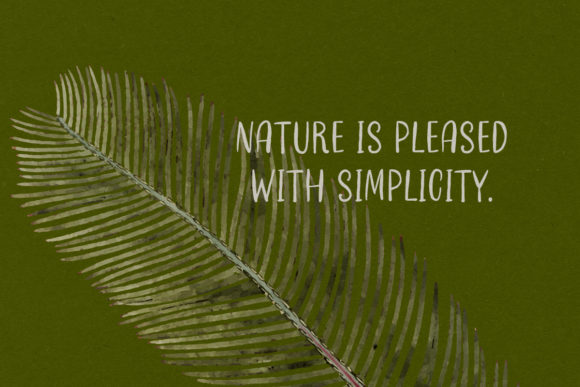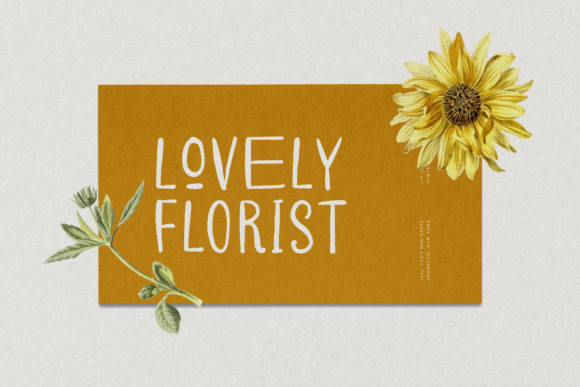
Daisy Lovers Font
db-ku.com - Script & Handwritten -- Daisy Lovers is a sweet and simple handwritten font. Its natural and delicate style makes it incredibly fitting to a large pool of designs. The only limit is your imagination!